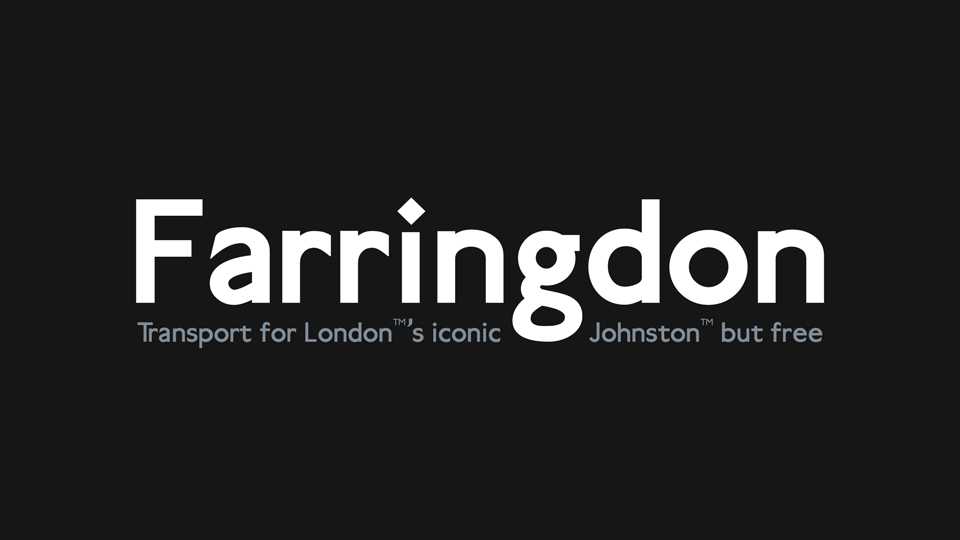
Download Farringdon font, a sans serif typeface based on the Edward Johnston’s legendary hand-lettered forms. The name of the typeface is taken from London’s Farringdon Station, which is home to a beautiful memorial to Mr. Johnston, consisting of large quasi-punches illustrating the magnificence of his lettering.
Designer: Elijah Granet